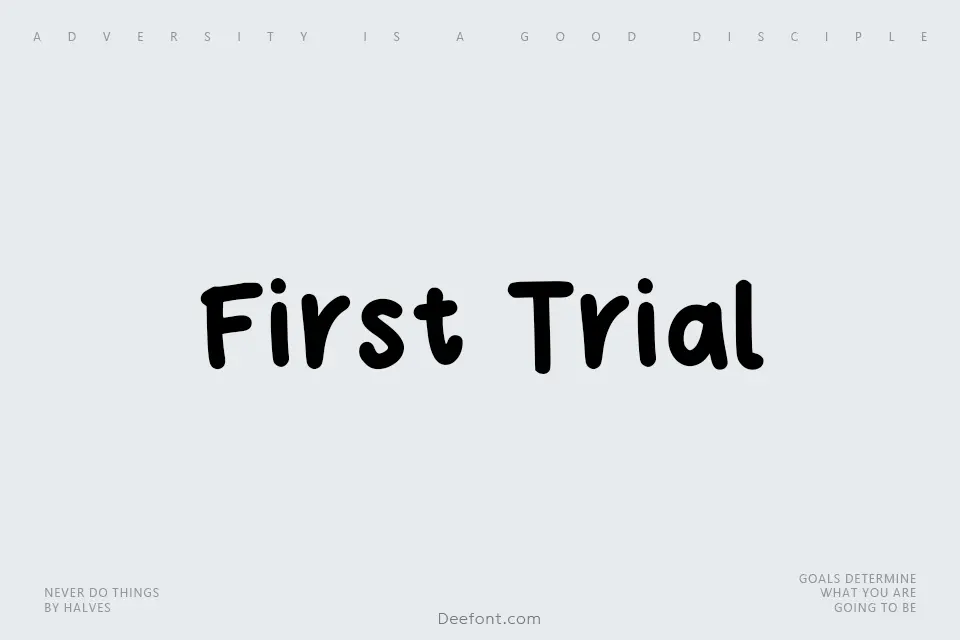
First Trial Font
First Trial Font is a distinctive handwritten script font designed by levannter, characterized by its casual, organic aesthetic. This typeface emulates the fluidity of hand-drawn lettering, making it ideal for projects requiring a personal, artisanal touch. The font includes a streamlined character set covering basic Latin alphabets (uppercase and lowercase), numerals, and common punctuation, though it lacks advanced OpenType features and multilingual support beyond 12 languages. Its minimalist design balances readability with a playful charm, though its trial nature limits glyph variety and typographic flexibility.